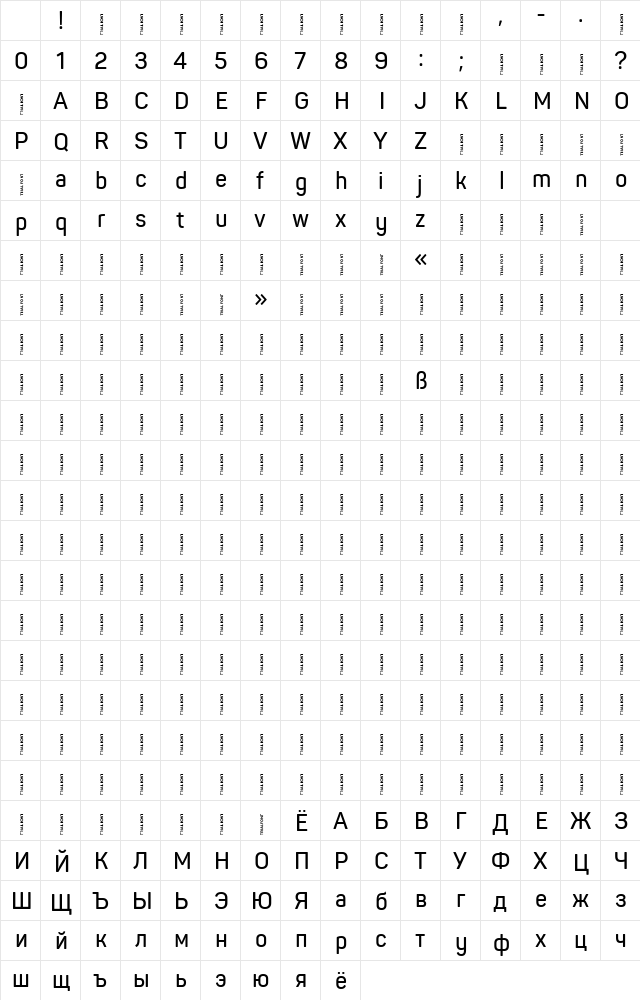
Complete Panton Narrow-Trial SemiBold Regular glyph index. Displaying only characters natively supported by Panton Narrow-Trial SemiBold Regular font.
Panton Narrow-Trial SemiBold is a composed and adaptable typeface that performs quietly and consistently across a wide range of design contexts. Its bold stroke weight gives it real presence on the page. Its narrow stance lets it pack a punch even in space-constrained designs.